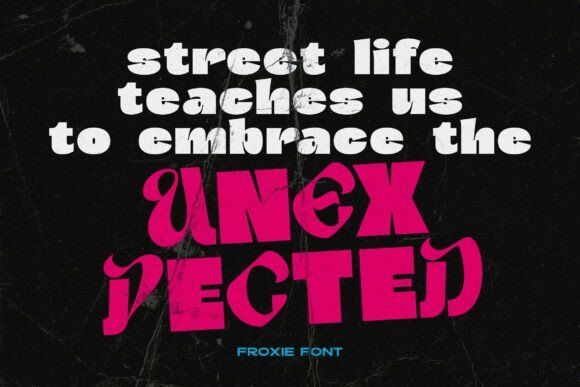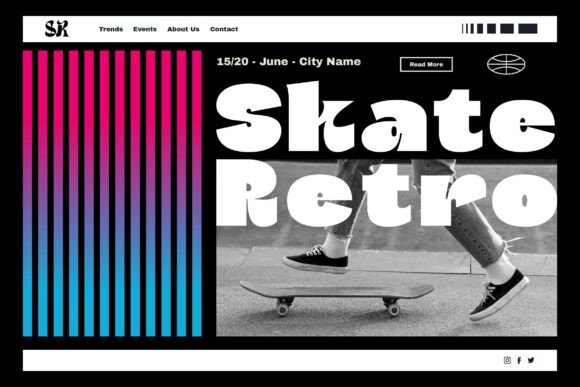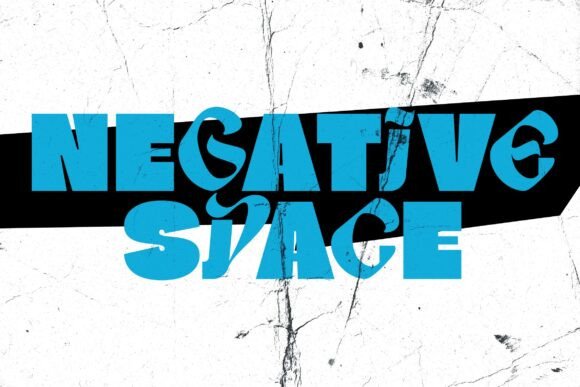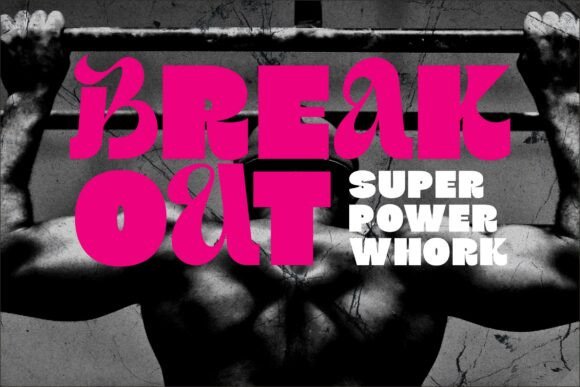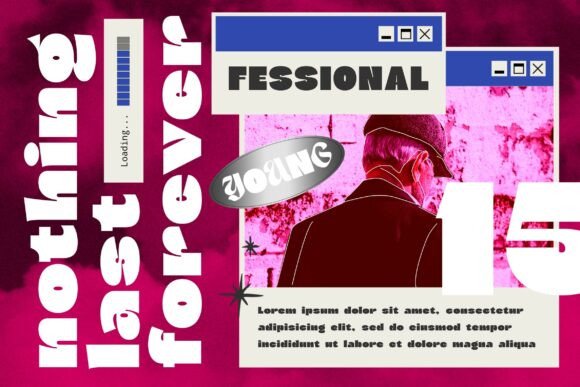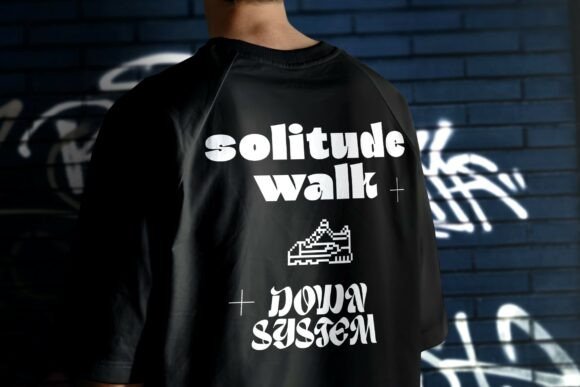
Froxie Font: A Perfect Blend of Modern Simplicity and Classic Elegance
In the world of typography, finding the perfect font that combines modern simplicity with classic elegance can be a daunting task. However, Froxie Font has emerged as a game-changer, offering a unique hybrid typeface that seamlessly blends the clean simplicity of a modern sans serif with the bold, ornamental spirit of classic blackletter. This innovative font is perfect for designers and crafters looking for a typeface that feels both contemporary and historic, making it an ideal choice for projects that want to stand out with a touch of elegance.
The Birth of a Hybrid Typeface
Froxie Font is a carefully crafted typeface that brings together the best of both worlds. Its sans-inspired structure ensures legibility, making it easy to read and understand, while the blackletter details add personality and expressive depth. This balance makes Froxie a versatile choice for a wide range of design applications, from branding and editorial design to fashion logos and street-style-inspired visuals.
Key Features of Froxie Font
- Unique Hybrid Design: Froxie Font combines the simplicity of a modern sans serif with the bold, ornamental spirit of classic blackletter, creating a truly unique typeface.
- Legibility: The sans-inspired structure of Froxie ensures that it is easy to read and understand, making it perfect for body text and headlines.
- Expressive Depth: The blackletter details add a touch of elegance and sophistication, making Froxie ideal for projects that require a bit of personality.
- Versatility: Froxie is a versatile typeface that can be used for a wide range of design applications, from branding and editorial design to fashion logos and street-style-inspired visuals.
Applications of Froxie Font
Froxie Font is a versatile typeface that can be used for a variety of design applications. Here are some of the most popular uses of Froxie:
- Branding: Froxie is perfect for branding projects that require a unique and elegant typeface. Its hybrid design makes it stand out from other fonts, making it ideal for logos, business cards, and other marketing materials.
- Editorial Design: Froxie is a great choice for editorial design projects, such as magazines, newspapers, and books. Its legibility and expressive depth make it perfect for headlines and body text.
- Fashion Logos: Froxie is a popular choice for fashion logos and branding. Its unique hybrid design makes it stand out from other fonts, making it perfect for fashion brands that want to make a statement.
- Street-Style-Inspired Visuals: Froxie is also great for street-style-inspired visuals, such as posters, flyers, and social media graphics. Its bold and ornamental spirit makes it perfect for designs that require a bit of personality.
Why Choose Froxie Font?
There are many reasons why designers and crafters should choose Froxie Font for their next project. Here are a few:
- Unique Design: Froxie has a unique hybrid design that sets it apart from other fonts.
- Legibility: Froxie is easy to read and understand, making it perfect for body text and headlines.
- Versatility: Froxie is a versatile typeface that can be used for a wide range of design applications.
- Elegance: Froxie adds a touch of elegance and sophistication to any design project.
| Font Name | Froxie Font |
| Author | ergibi studio |
In conclusion, Froxie Font is a game-changing typeface that combines the clean simplicity of a modern sans serif with the bold, ornamental spirit of classic blackletter. Its unique hybrid design makes it perfect for designers and crafters looking for a typeface that feels both contemporary and historic. With its legibility, expressive depth, and versatility, Froxie is an ideal choice for a wide range of design applications. Whether you’re working on a branding project, editorial design, fashion logo, or street-style-inspired visuals, Froxie Font is the perfect choice.